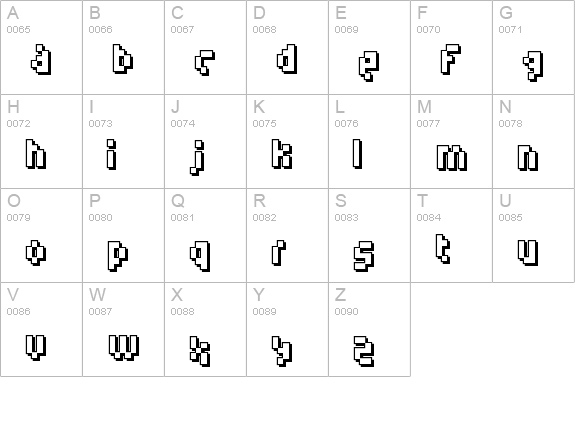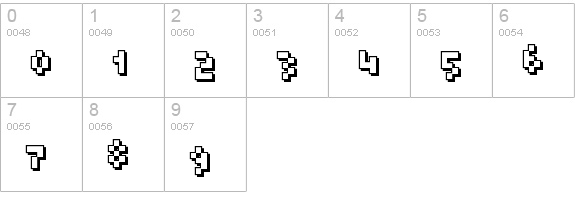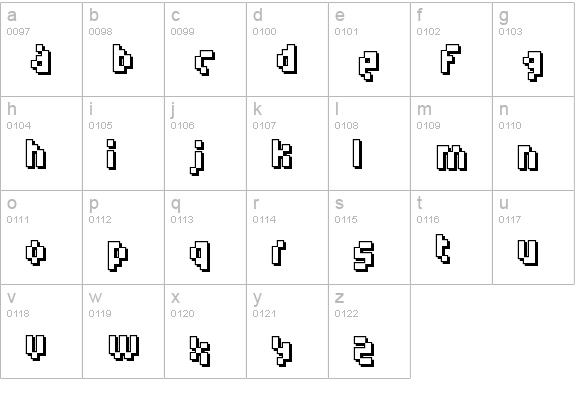
Humanoid straight Font Details
Humanoid straight font is a modern and sleek typeface that exudes a sense of sophistication and professionalism. Its clean lines and sharp edges give it a contemporary look that is perfect for a wide range of design projects. This font is versatile and can be used for various purposes, from branding to web design to print materials. The best part about Humanoid straight font is that it is available for free download at FontsMarket.com. You can easily access this font and start using it in your projects right away. With its timeless design and easy readability, Humanoid straight font is sure to elevate your work and make a lasting impression. Download it now and add a touch of elegance to your designs!